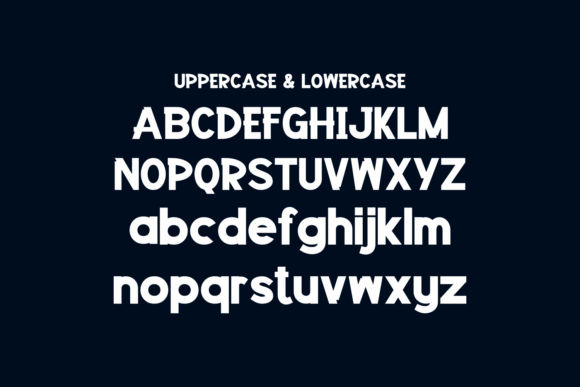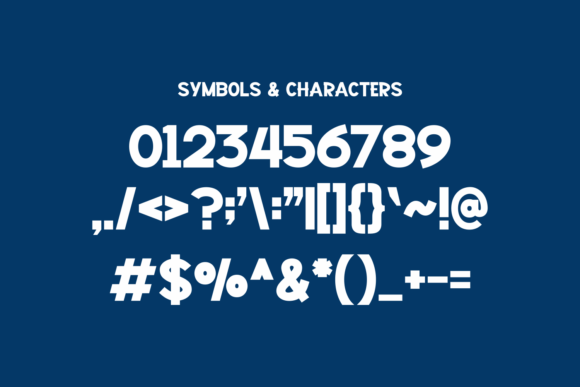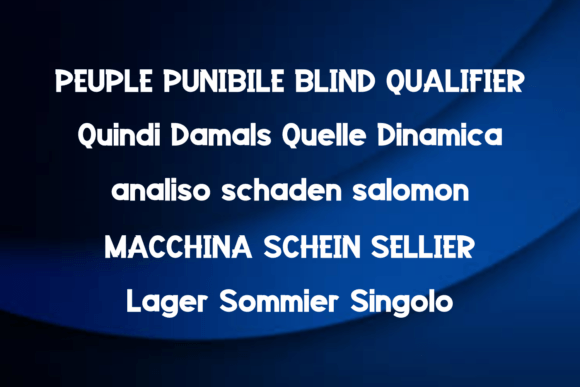
Discover the Quirky Charm of Antur Font: A Unique Display Font for Creative Projects
Are you tired of using the same old fonts for your creative projects? Look no further than Antur Font, a unique and interesting display font that’s sure to add a touch of personality to your designs. A little bit quirky, Antur Font looks incredibly adept on a wide variety of contexts, making it a versatile choice for designers and crafters alike.
What Makes Antur Font So Special?
Antur Font is a one-of-a-kind display font that’s designed to make a statement. Its quirky and playful design makes it perfect for projects that require a bit of personality and whimsy. Whether you’re working on a logo, a poster, or a website, Antur Font is sure to add a touch of charm and character to your design.
One of the things that sets Antur Font apart from other fonts is its unique lettering style. Each letter is carefully crafted to create a sense of movement and energy, making it perfect for projects that require a bit of dynamism. The font’s quirky design also makes it perfect for use in headlines, titles, and other applications where you want to grab the reader’s attention.
Why Designers and Crafters Love Antur Font
So why do designers and crafters love Antur Font so much? For one thing, it’s incredibly versatile. Whether you’re working on a digital project or a print project, Antur Font looks great in a wide range of contexts. It’s also highly legible, making it perfect for use in body text as well as headlines and titles.
How to Use Antur Font in Your Designs
So how can you use Antur Font in your designs? Here are a few ideas to get you started:
• Use Antur Font as a headline font to add a touch of personality to your designs.
• Pair Antur Font with a more traditional font to create a striking contrast.
• Use Antur Font to create eye-catching titles and section headings.
• Experiment with different colors and textures to add depth and interest to your designs.
Tips and Tricks for Getting the Most Out of Antur Font
Here are a few tips and tricks for getting the most out of Antur Font:
• Experiment with different font sizes to create visual interest and hierarchy.
• Use Antur Font in combination with other design elements, such as images and graphics.
• Don’t be afraid to get creative and try new things – Antur Font is a versatile font that can handle a wide range of design styles.
Font Name Antur Font
Author lelevien
In conclusion, Antur Font is a unique and interesting display font that’s perfect for designers and crafters who want to add a touch of personality to their designs. With its quirky and playful design, Antur Font is sure to make a statement in any project. Whether you’re working on a logo, a poster, or a website, Antur Font is a versatile choice that’s sure to impress.